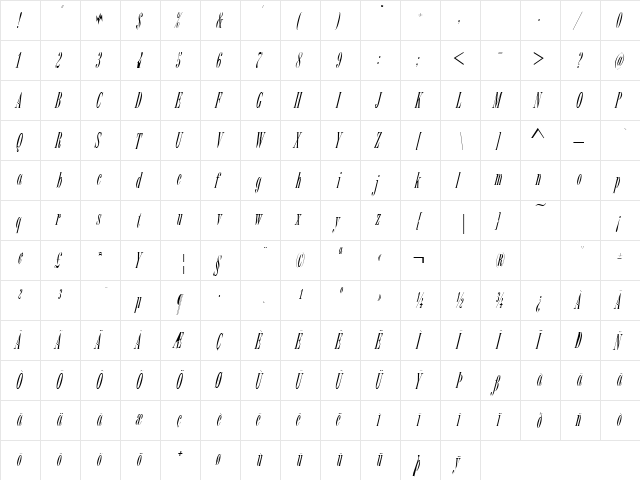
Bordeaux ICG Italic
Design Context for Bordeaux ICG Typeface
Bordeaux ICG offers clean, dependable letterforms without strong stylistic allegiance, making it a practical choice for designers who need flexibility. The dynamic lean of this cut emphasises speed and emphasis in any layout.
Pro Tip: Try Bordeaux ICG for annotation and caption copy alongside an upright companion — the contrast in angle creates a dynamic but ordered typographic system.